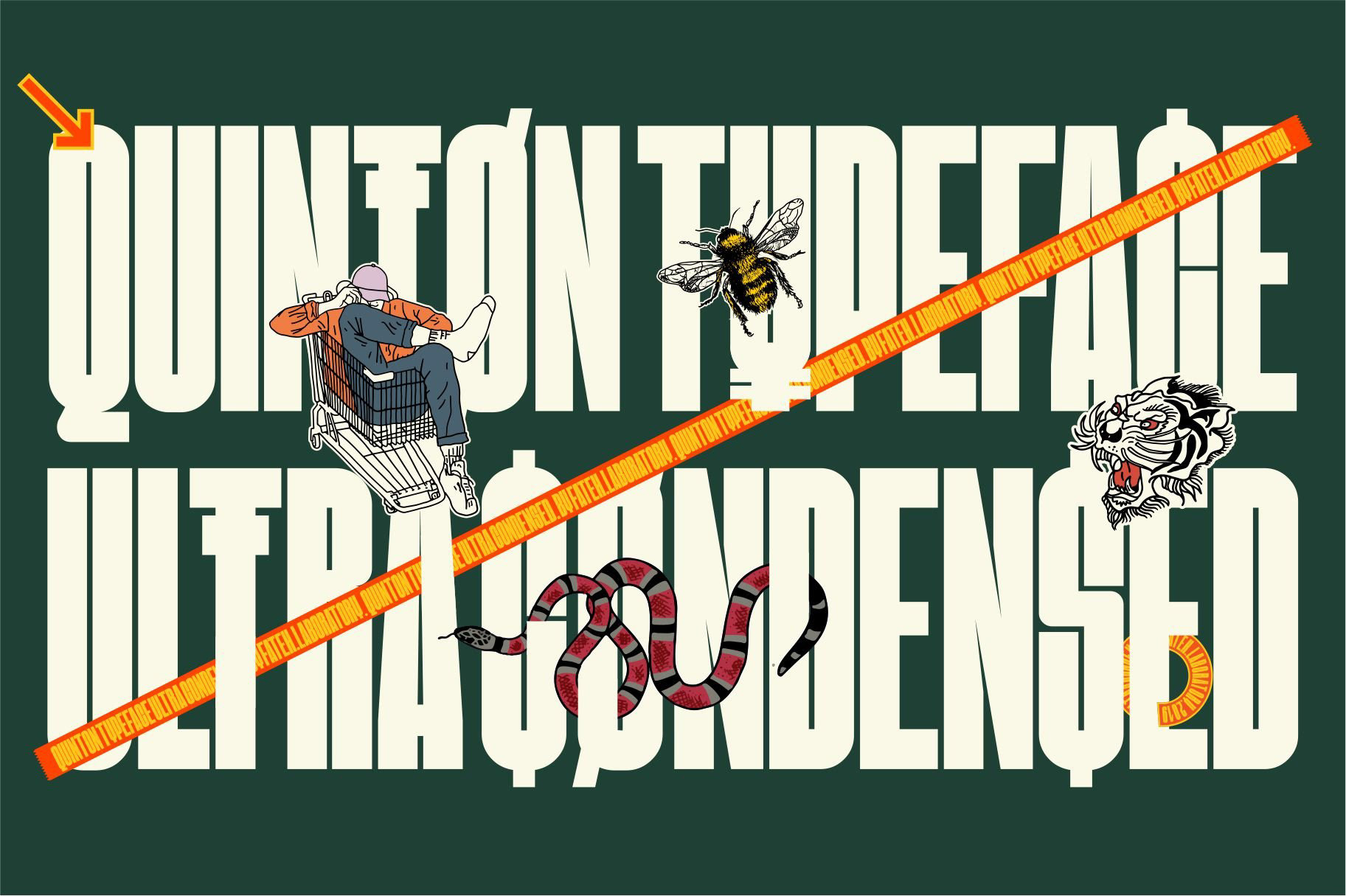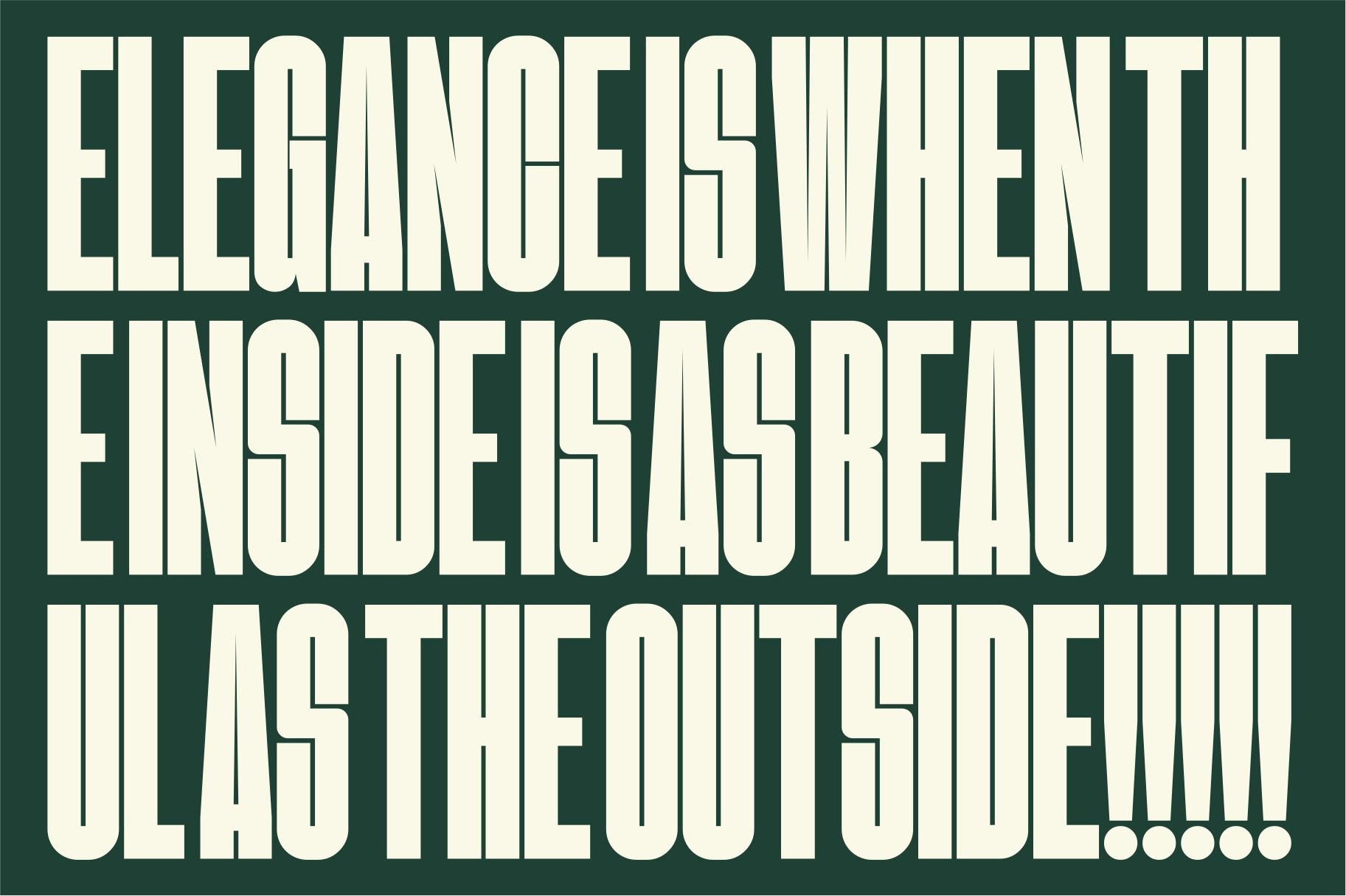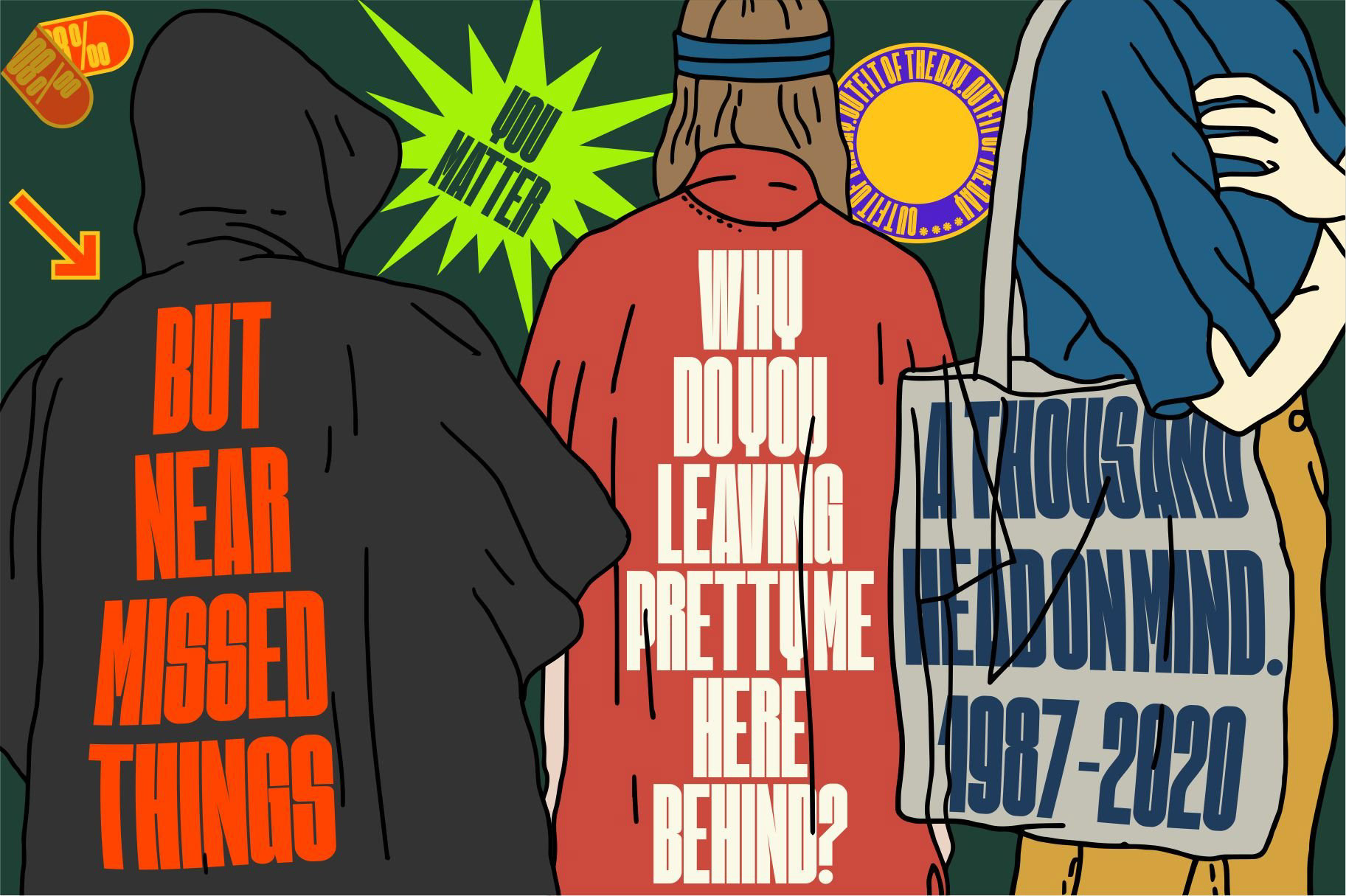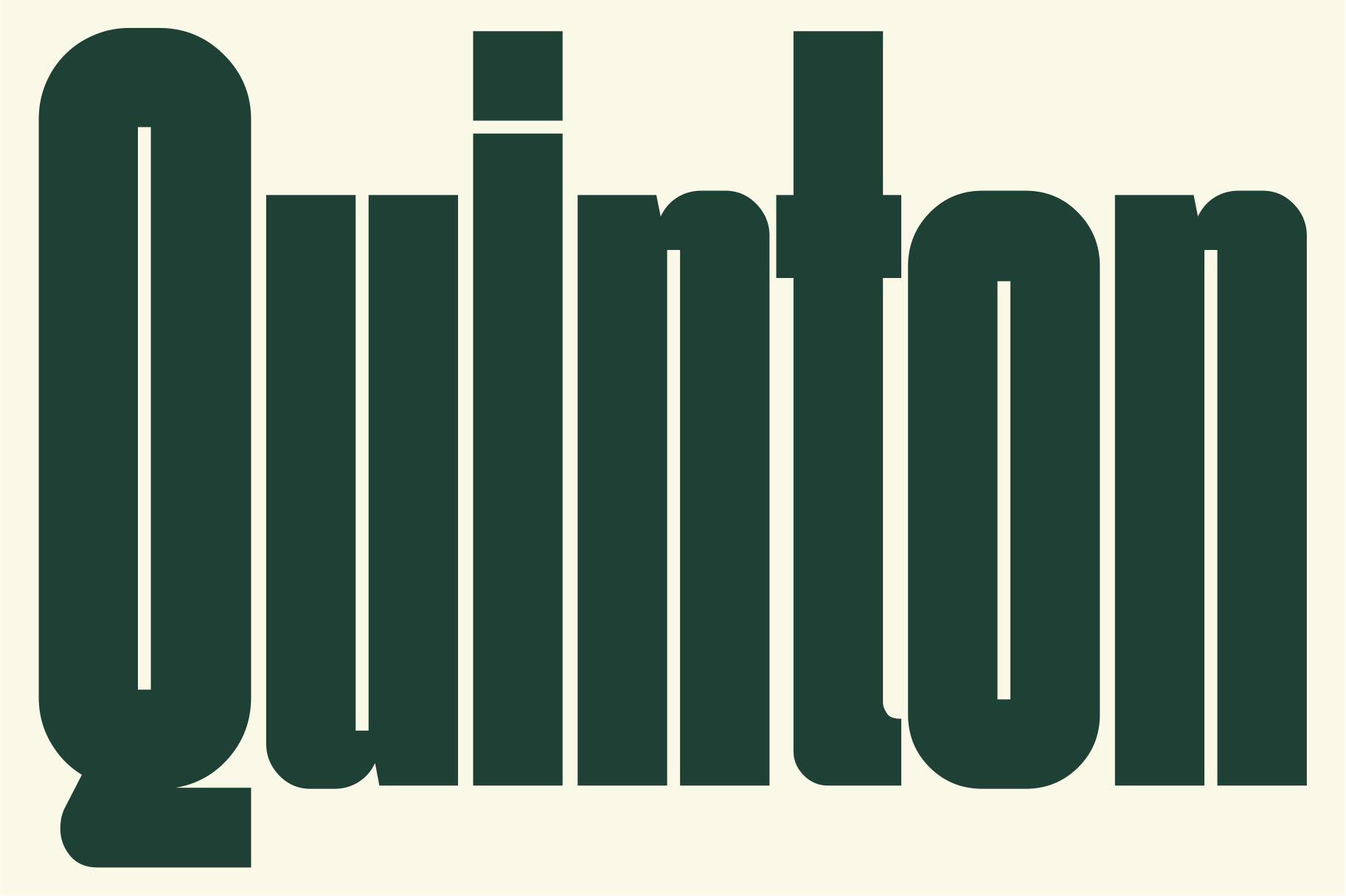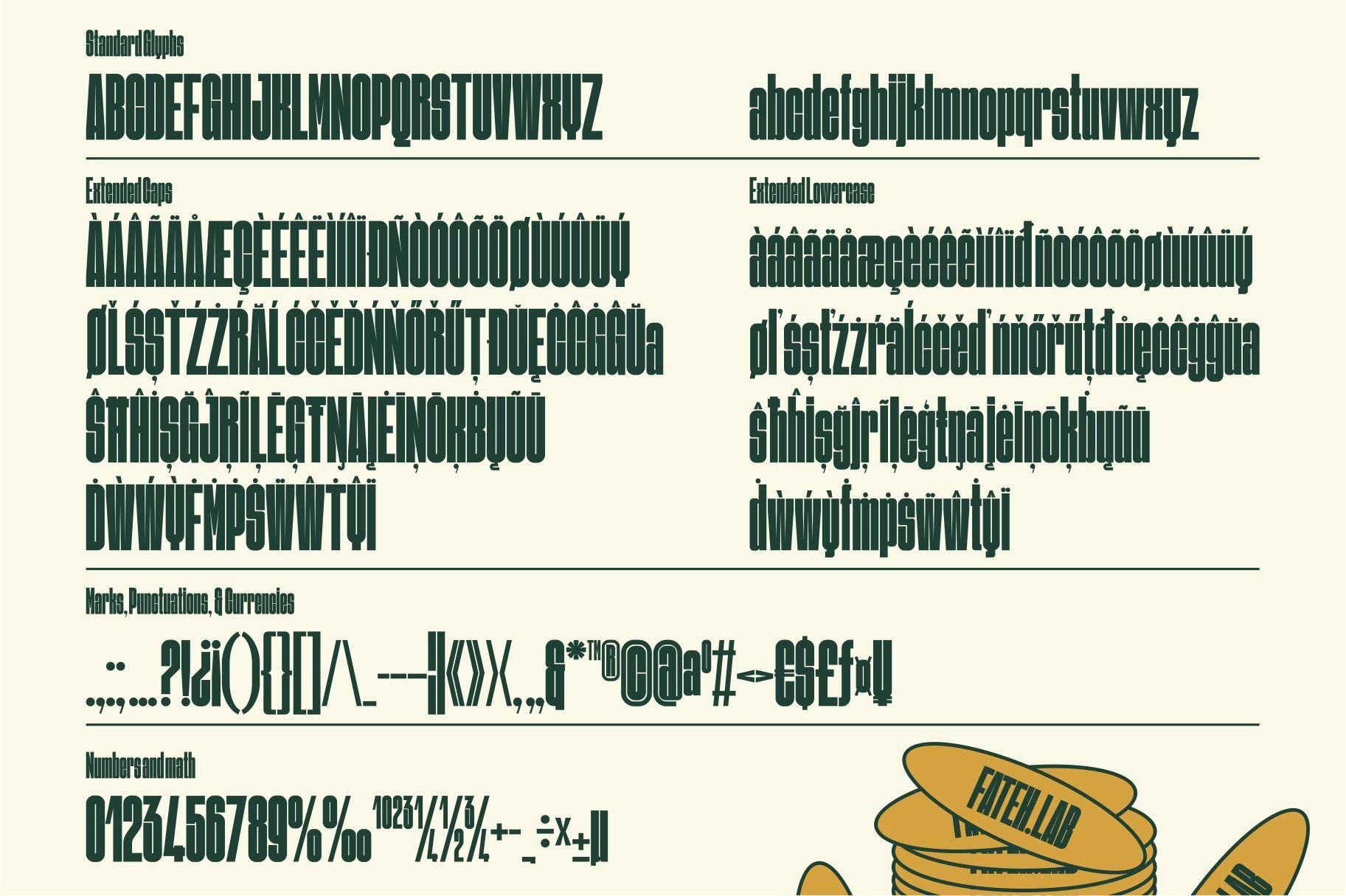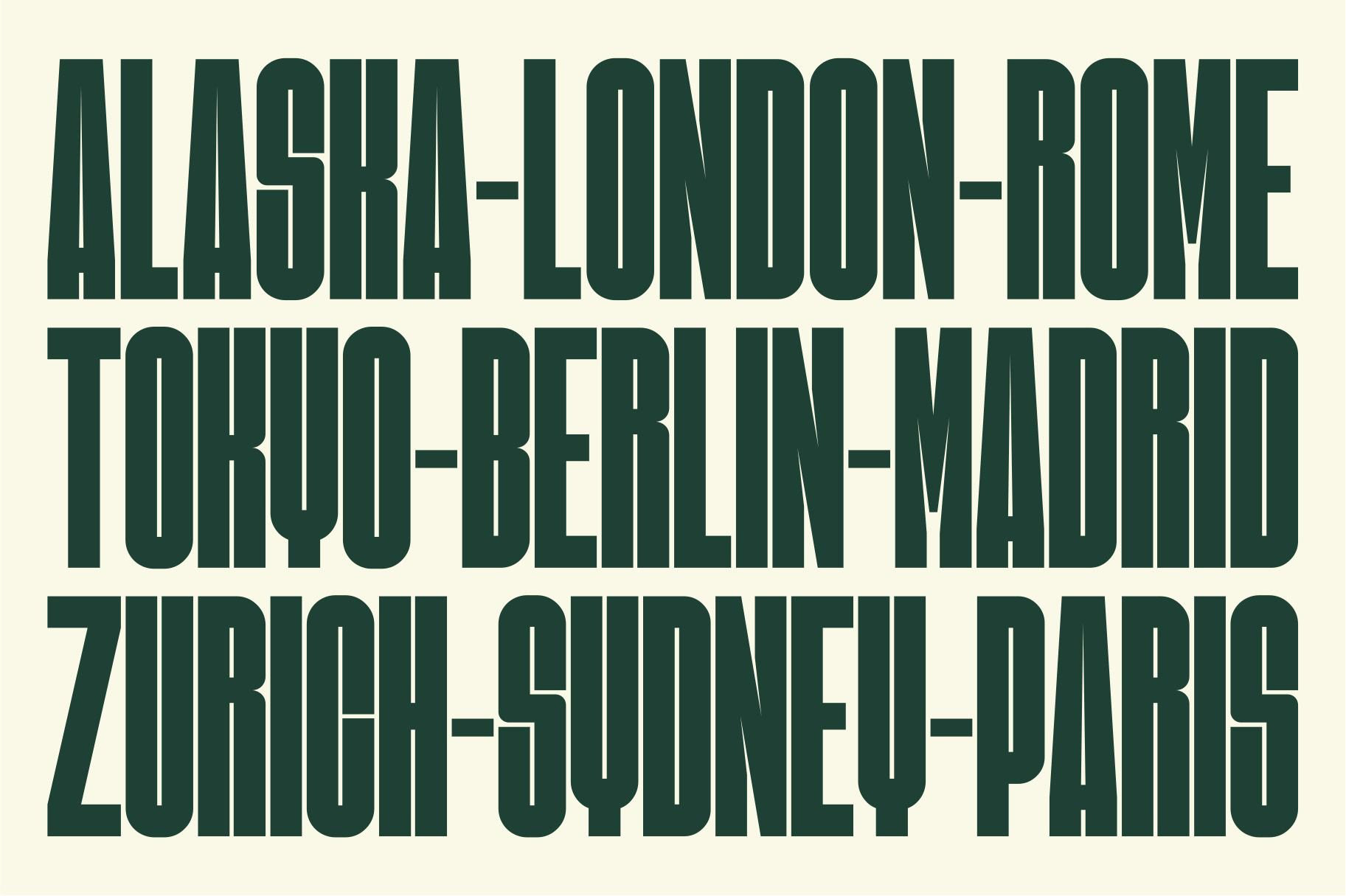
Quinton is an ultra condensed font, and with a style that is very different from the others.
Its weight is superior in posters, social media, headlines, magazine titles, clothing, large print formats - and wherever you want to be seen.
Inspired by the style of design that is currently popular, and this is the answer to all the needs of every idea that you will pour in this modern era.